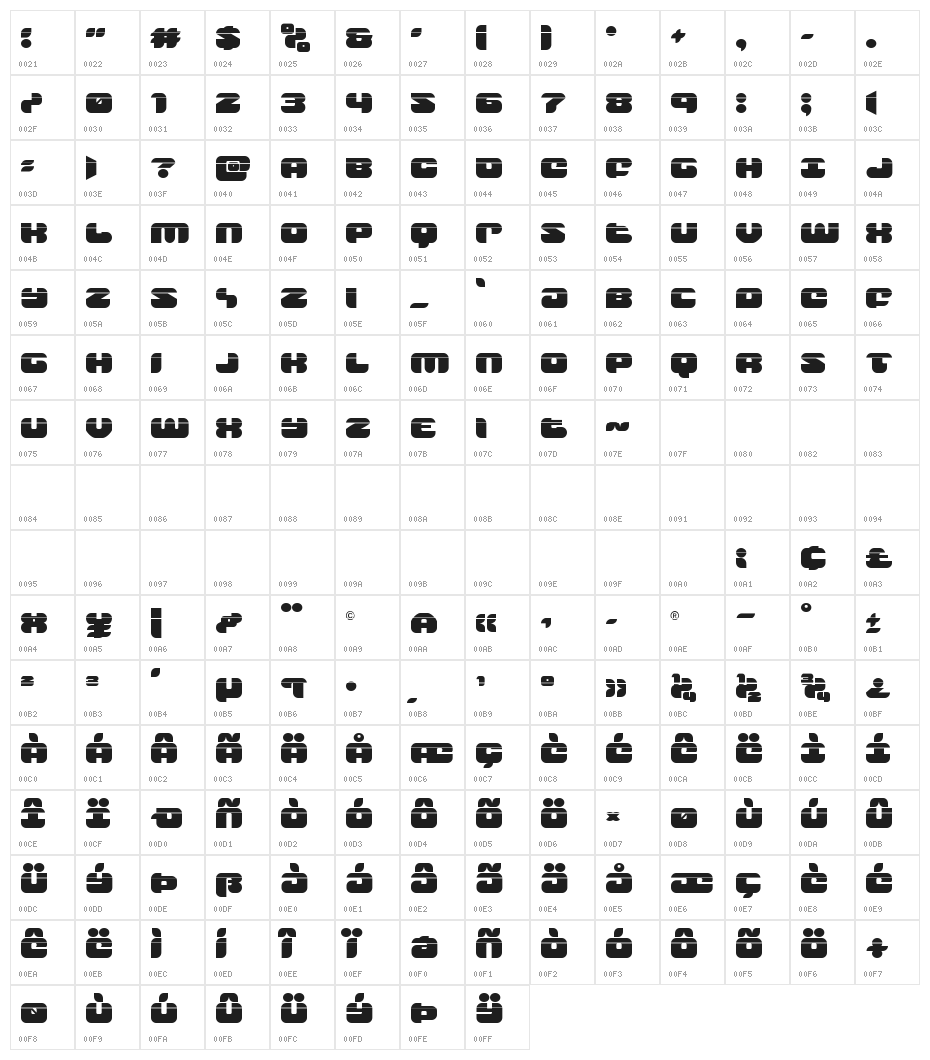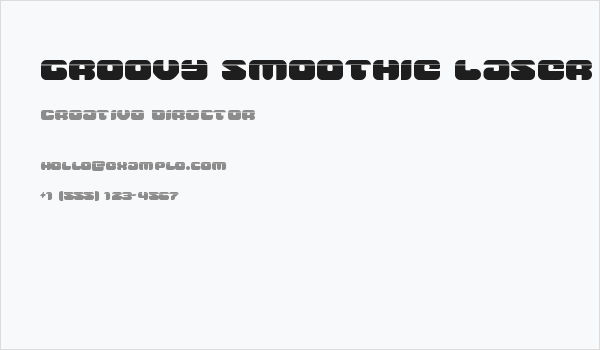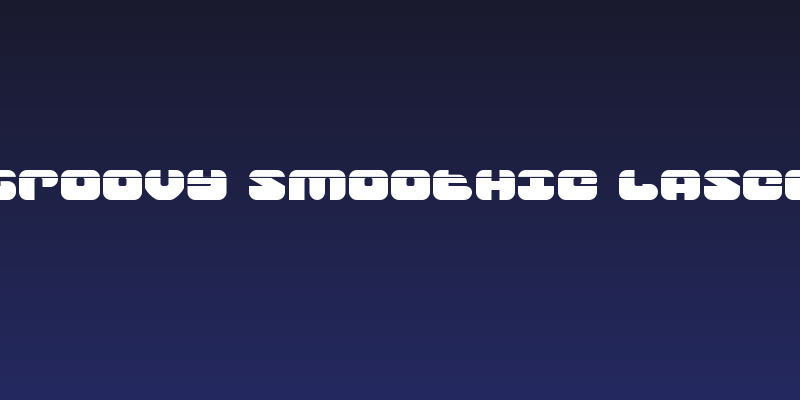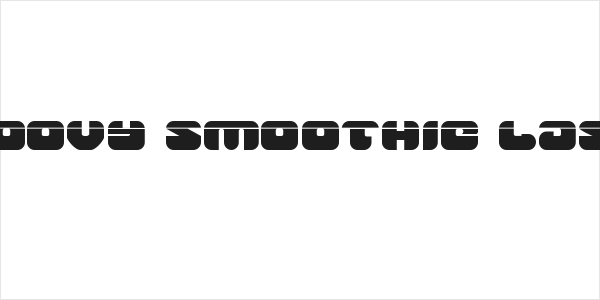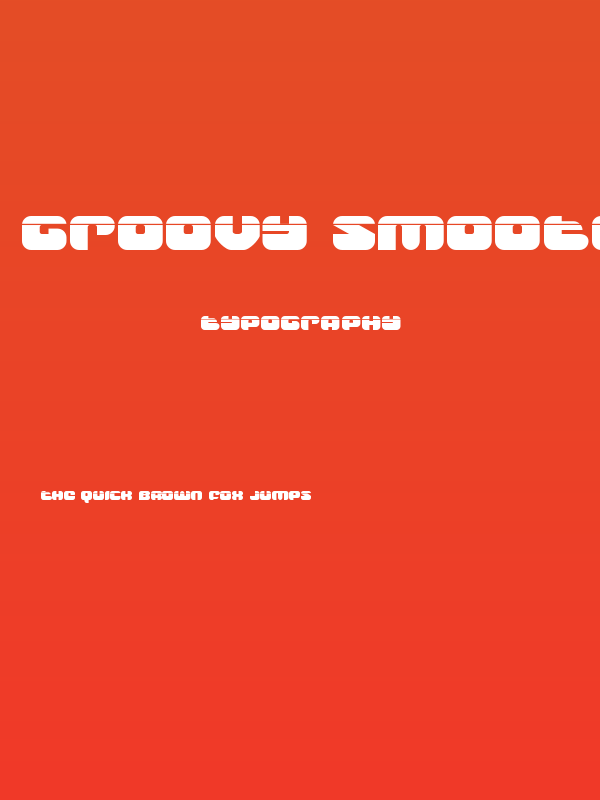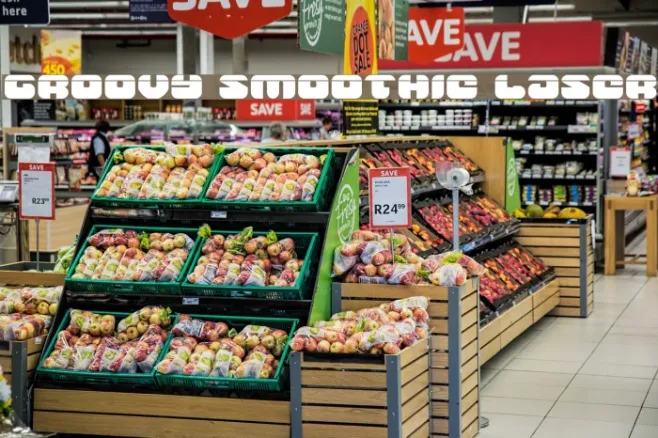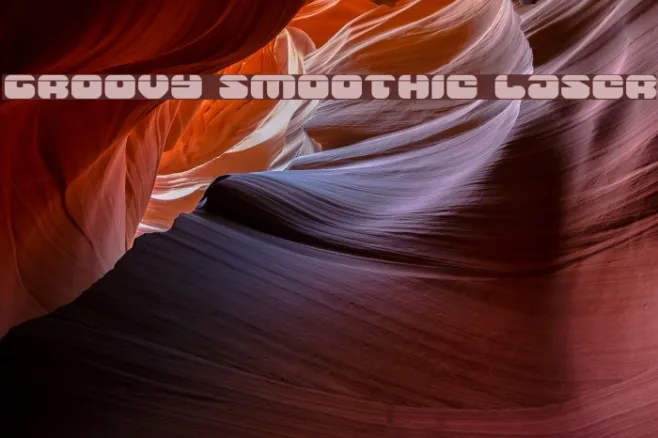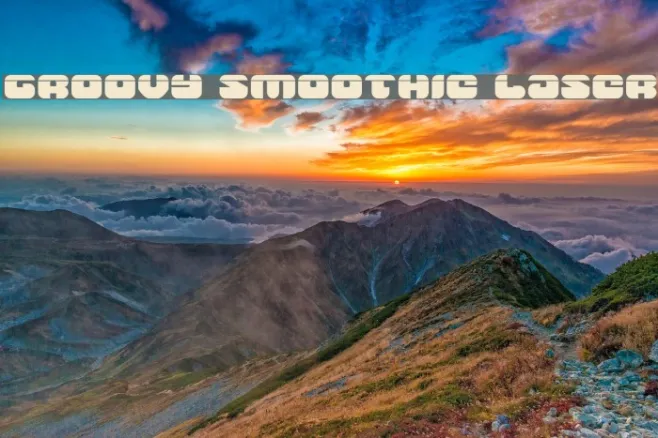
Groovy Smoothie Laser Font
Groovy Smoothie Laser Description
This font features a bold, futuristic design with rounded edges and a smooth, continuous flow. The characters are wide and have a substantial presence, making them ideal for attention-grabbing headlines or logos. The design incorporates a unique blend of geometric shapes and curves, creating a modern and sleek appearance. The font's consistent stroke width and lack of serifs contribute to its clean and streamlined look. Its playful yet sophisticated style makes it versatile for various creative projects.
| Proposed Projects | Ideal for branding, logos, posters, and digital media that require a modern and eye-catching typeface. |